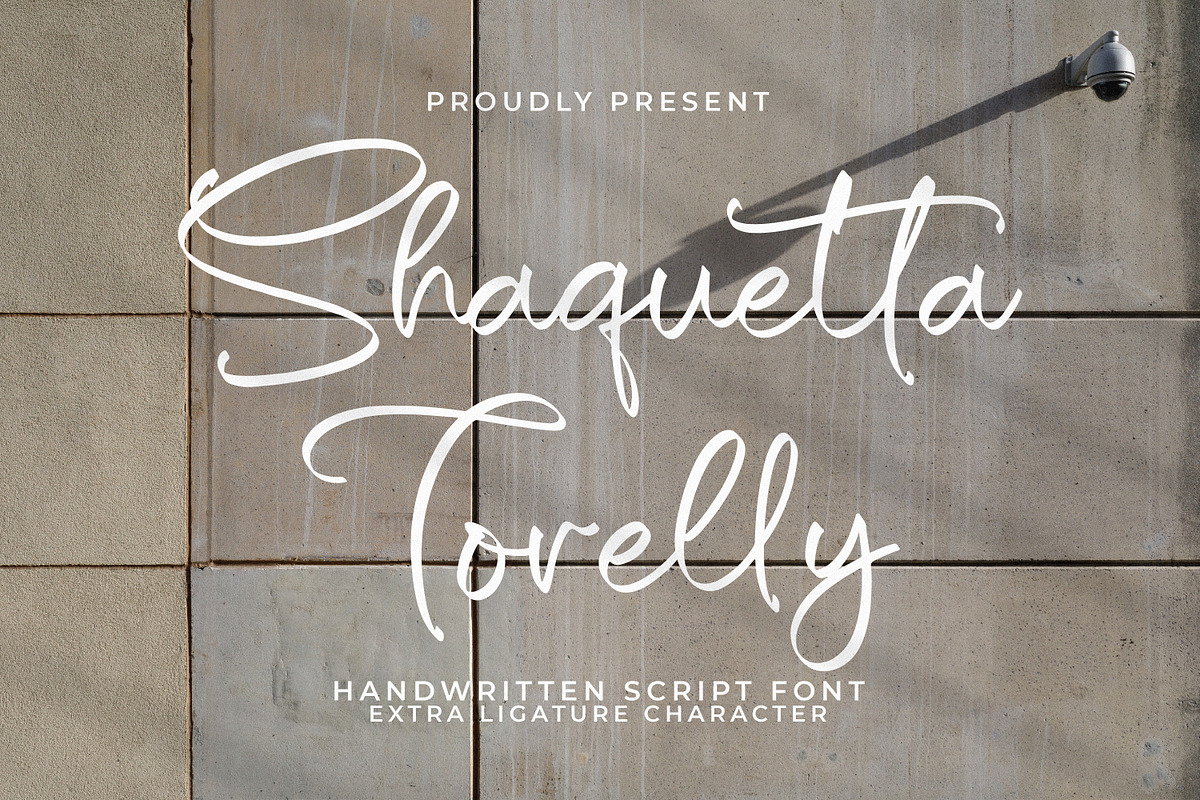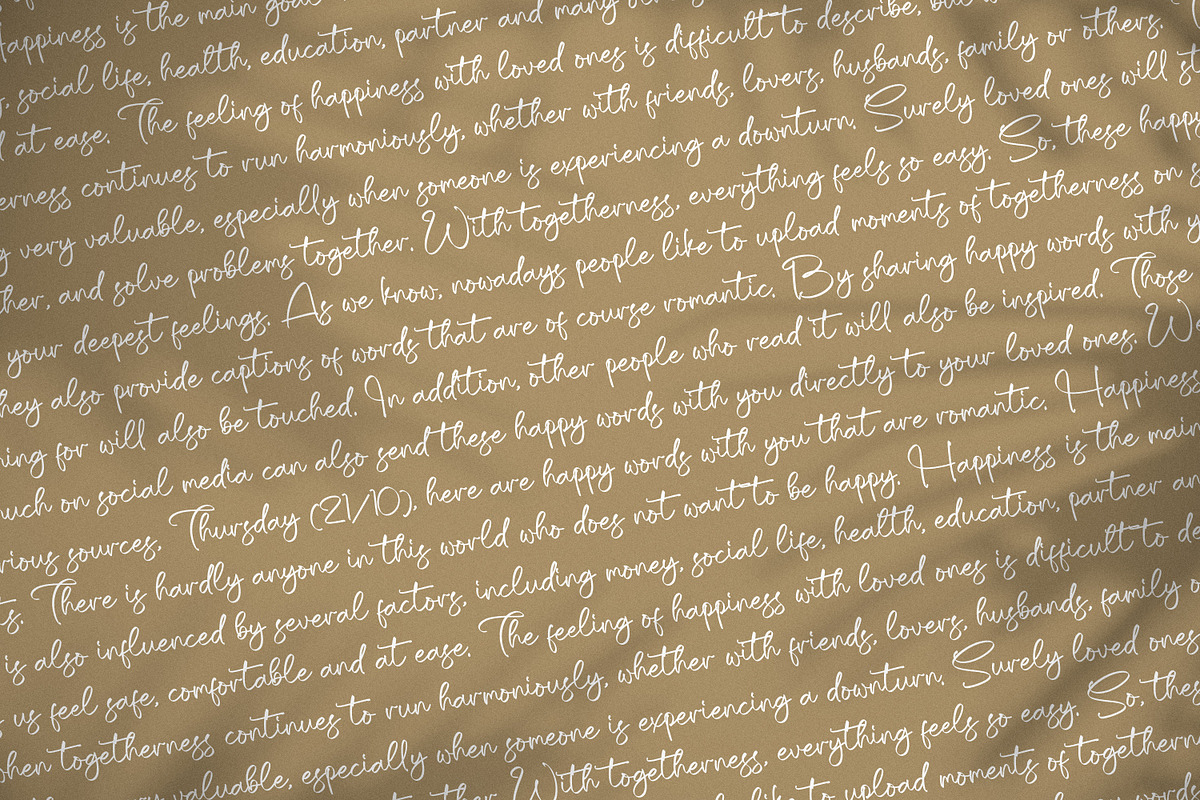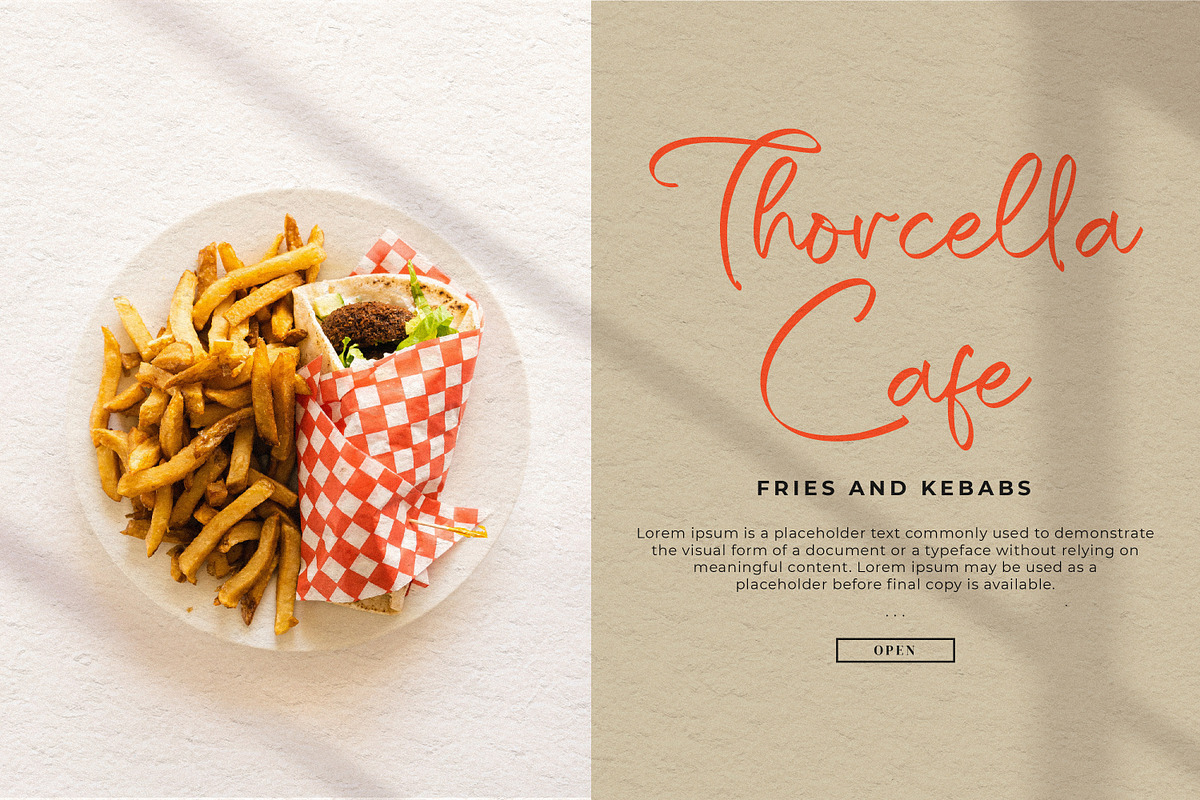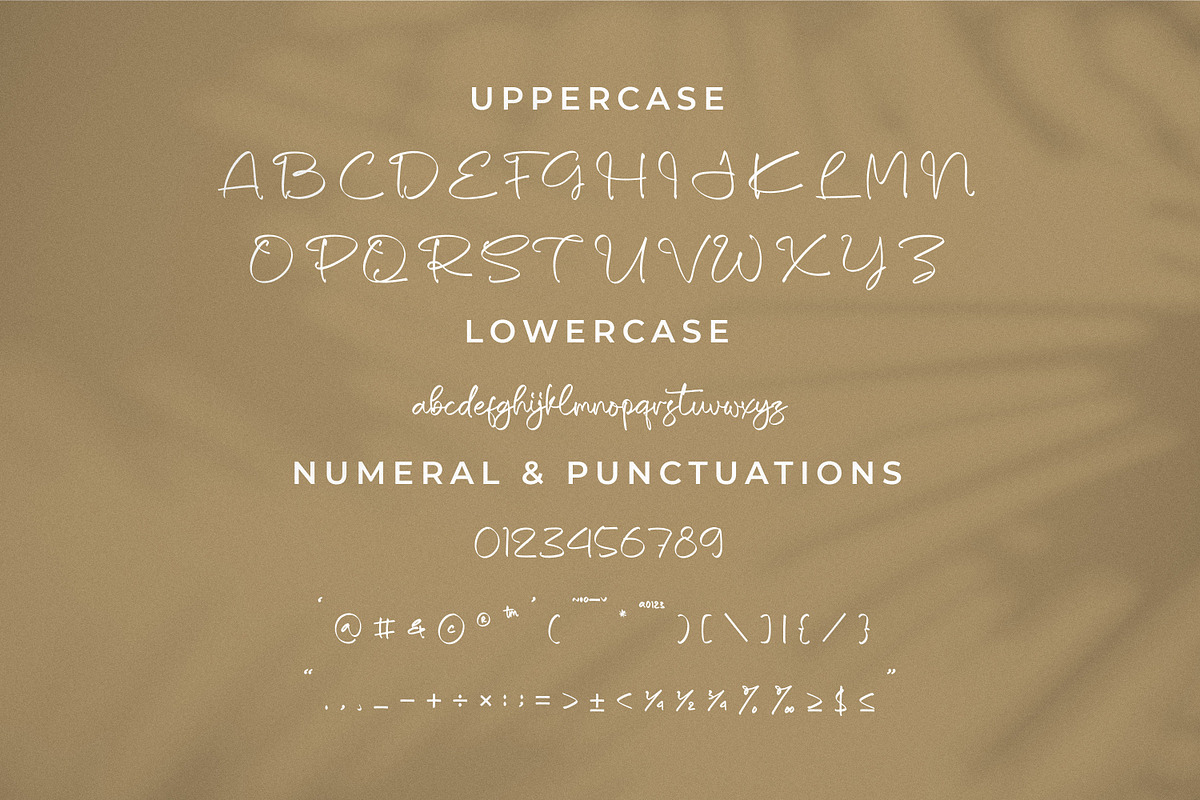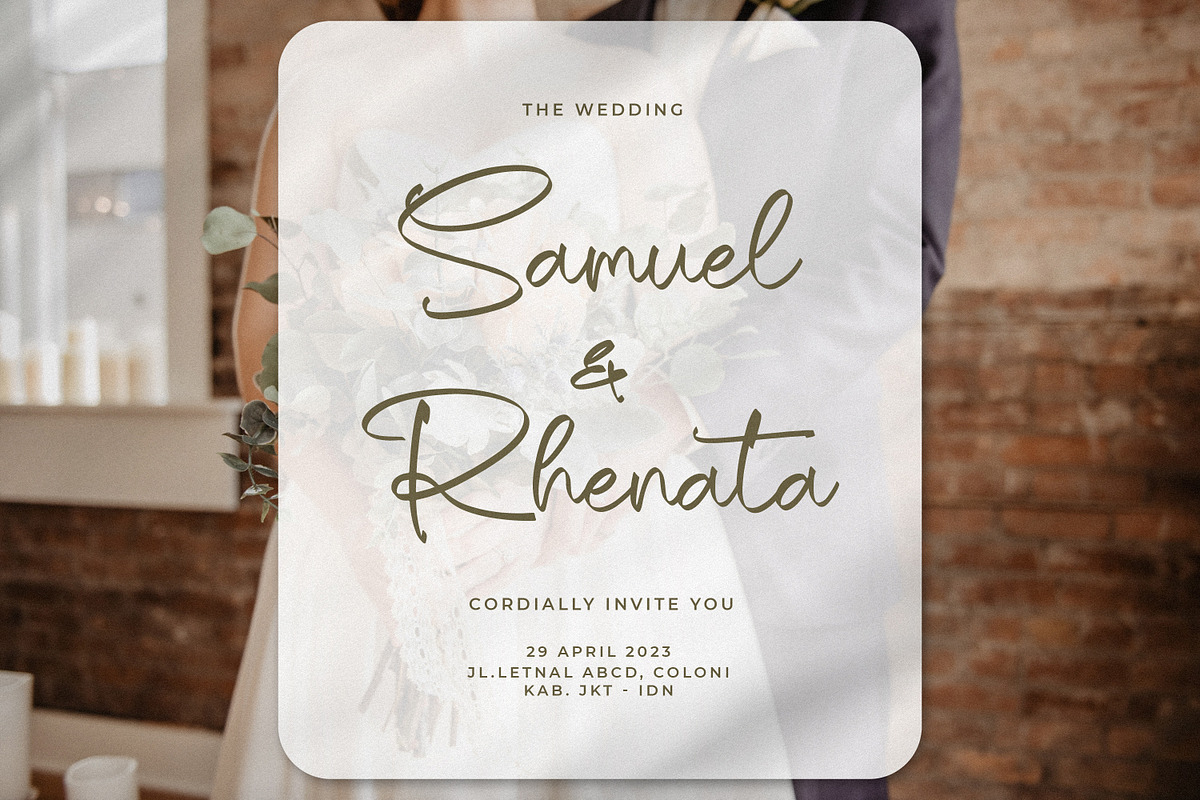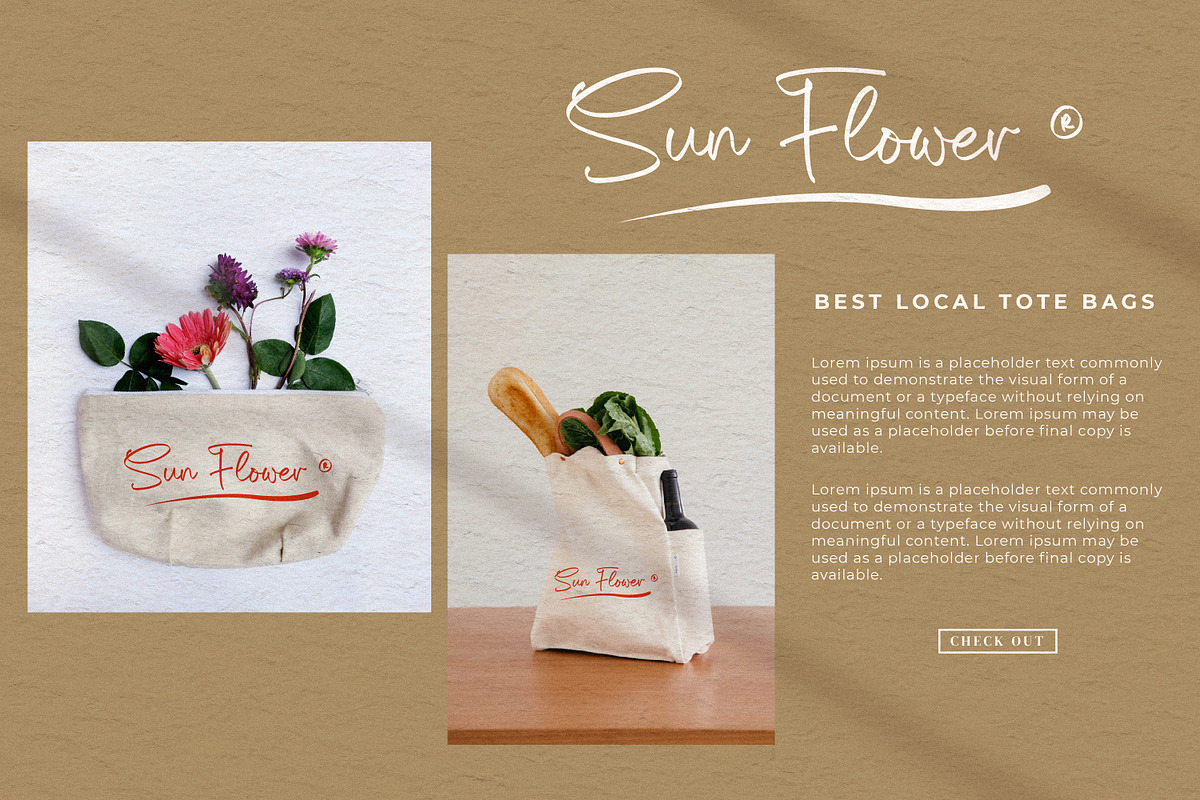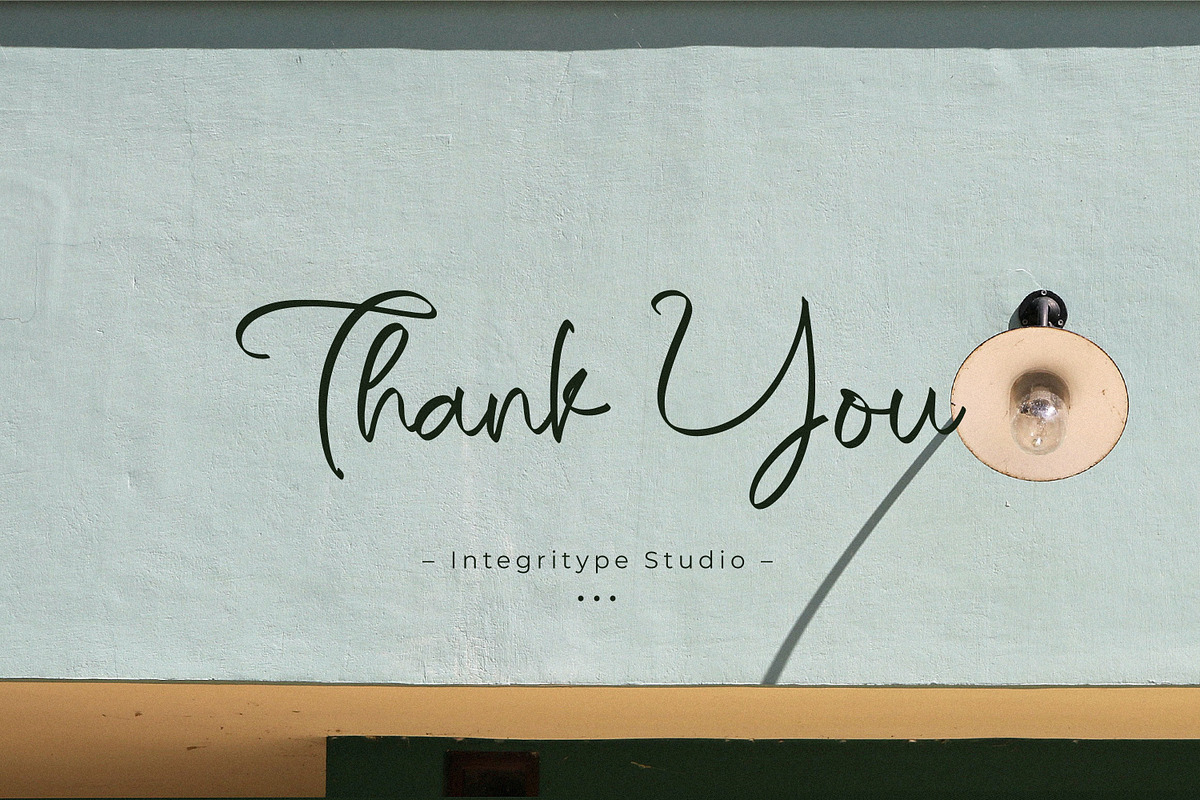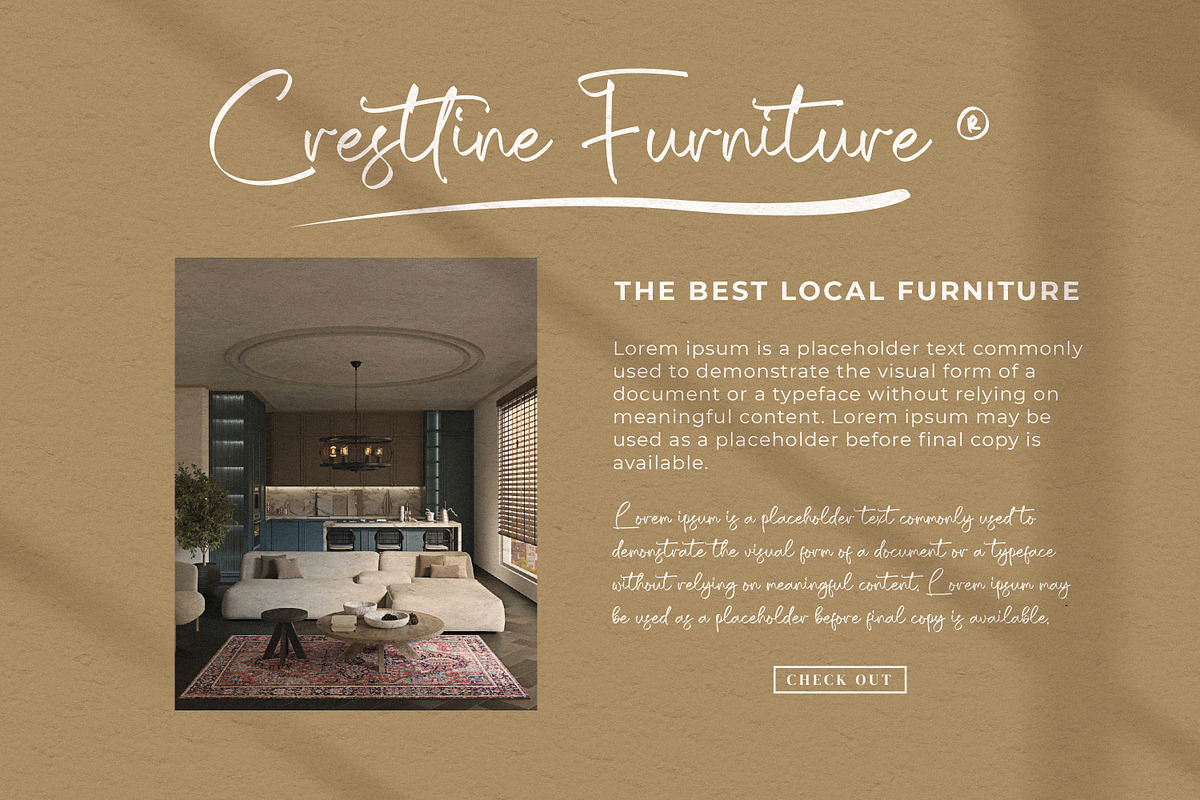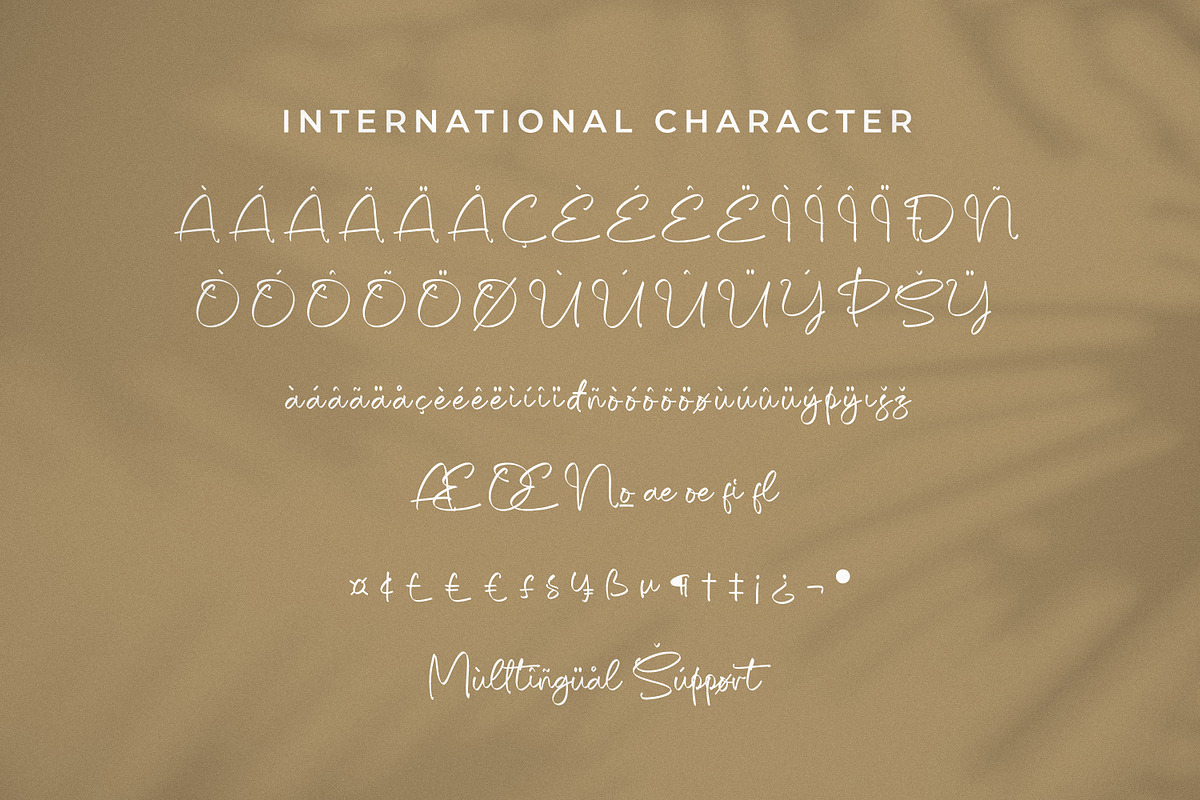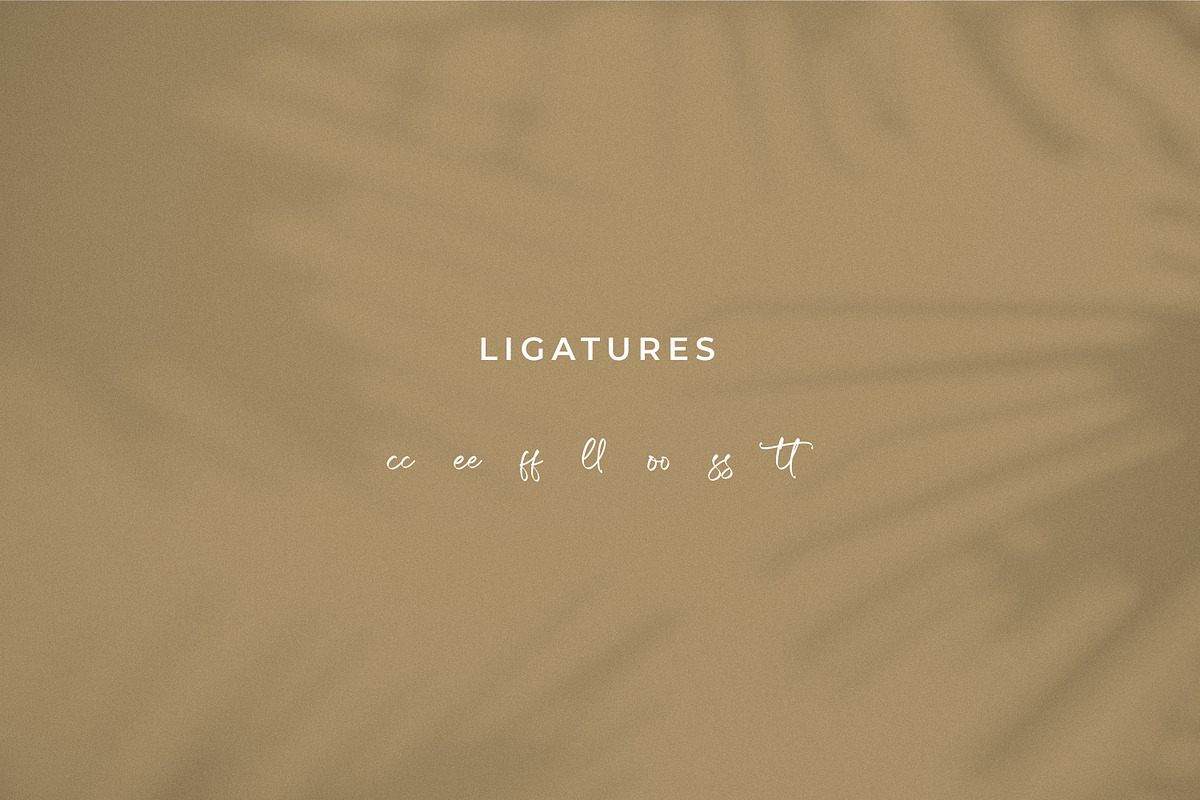
Shaquetta Torelly
Shaquetta Torelly - Handwritten Script Font, from Integritype Studio, is a premium Handwritten Script Font, perfect for any project like: logos, branding projects, homewares designs, product packaging, mugs, quotes, posters, shopping bags, t-shirts, covers books, business cards, invitation cards, greeting cards, labels, photography, watermarks, special events and all your other luxury projects that require a premium taste.
Ligatures, Alternatives & Swashes
Fonts includes support for 65 languages; Afrikaans, Albanian, Asu, Basque, Bemba, Bena, Breton, Catalan, Chiga, Cornish, Danish, Dutch, English, Faroese, Filipino, French, Friulian, Galician, German, Gusii, Indonesian, Irish, Italian, Kabuverdianu, Kalenjin, Kinyarwanda, Luo, Luxembourg, Luyia, Machame, Makhuwa-Meetto, Makonde, Malagasy, Manx, Morisyen, North Ndebele, Norwegian Bokmål, Nynorsk Norwegian, Nyankole, Oromo, Portuguese, Quechua, Romansh, Rombo, Rundi, Rwa, Samburu, Sango , Sangu, Scottish Gaelic, Sena, Shambala, Shona, Soga, Somali, Spanish, Swahili, Swedish, Swiss, German, Taita, Teso, Uzbek (Latin), Volapük, Vunjo, Zulu,